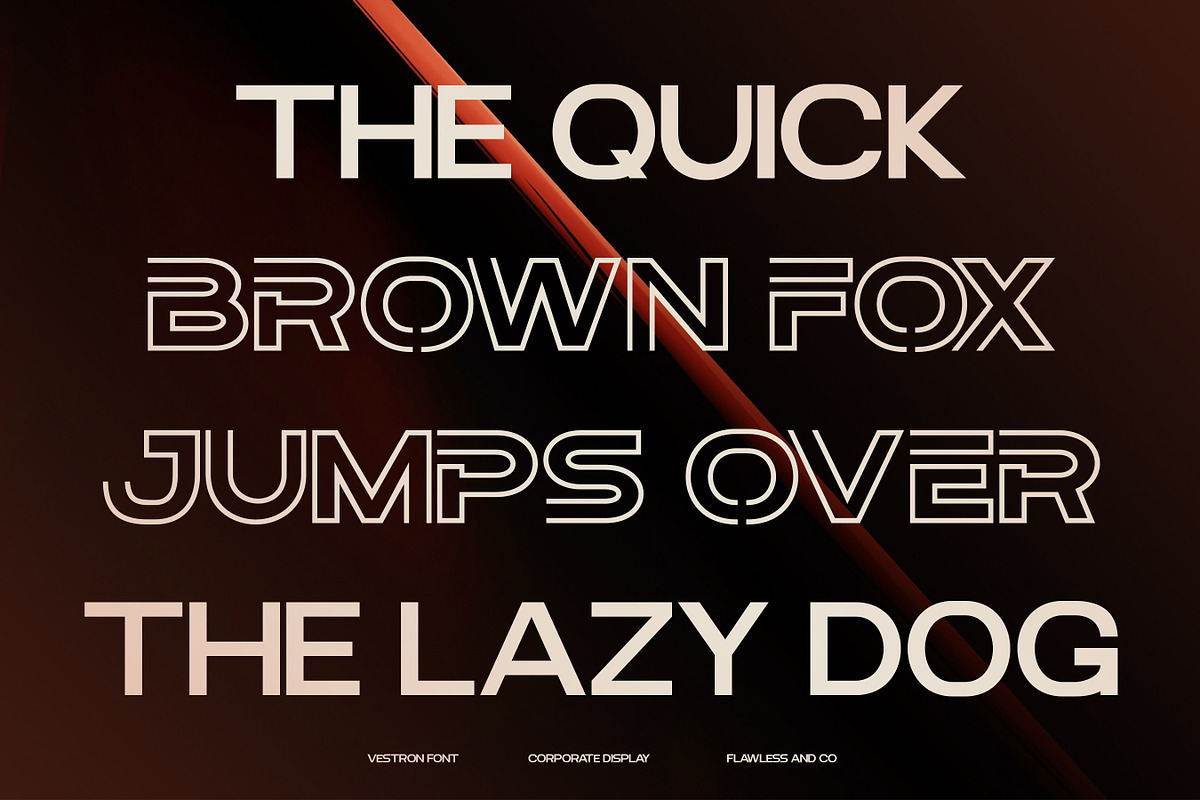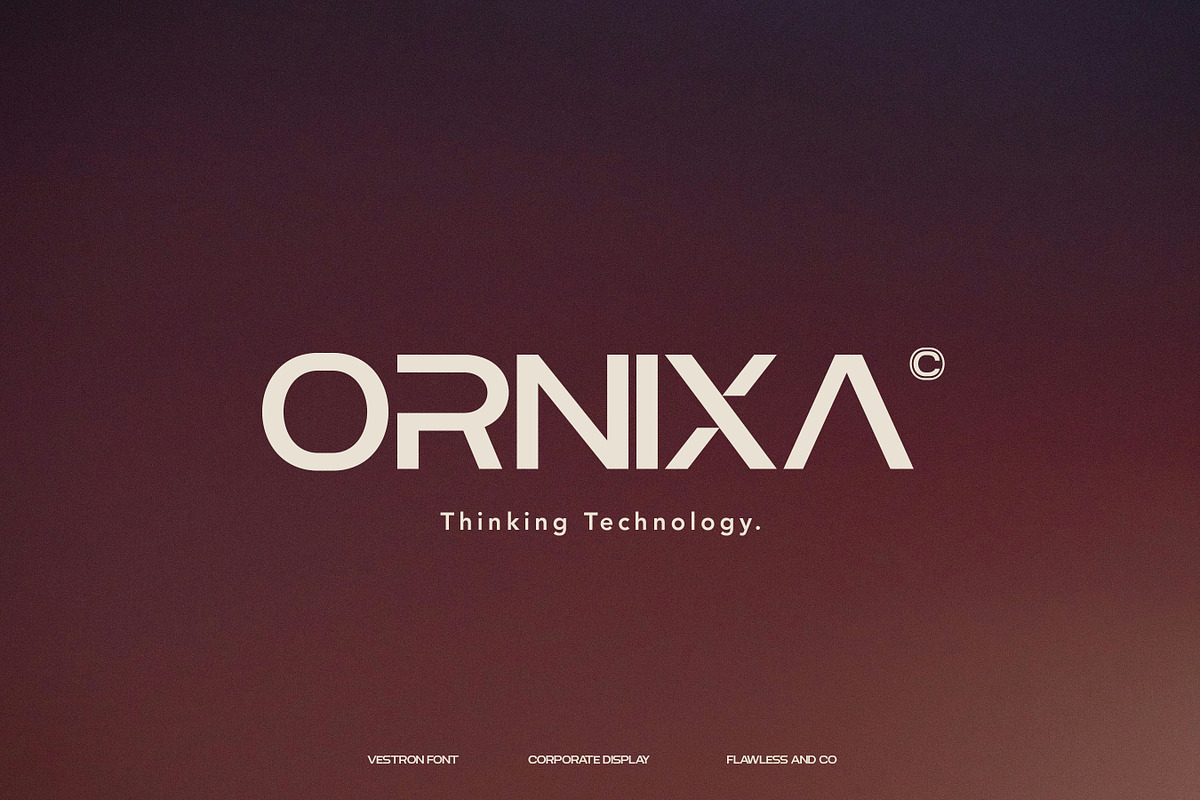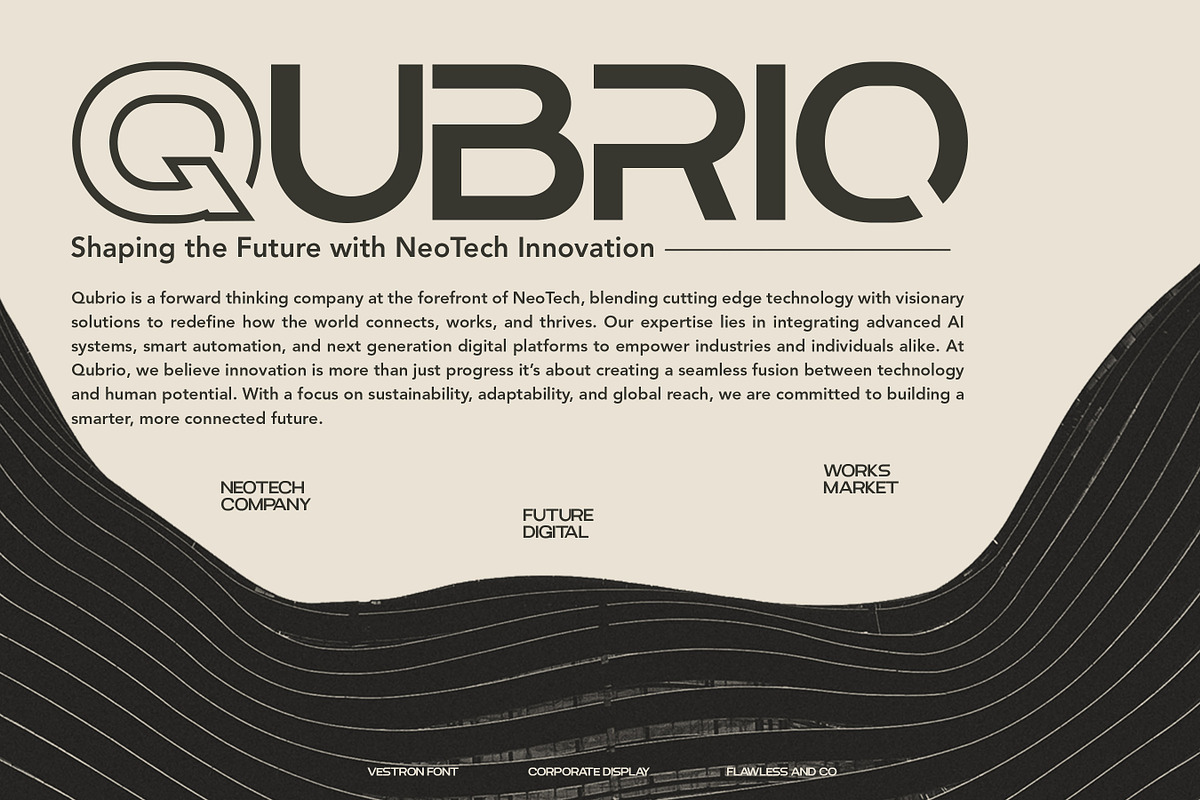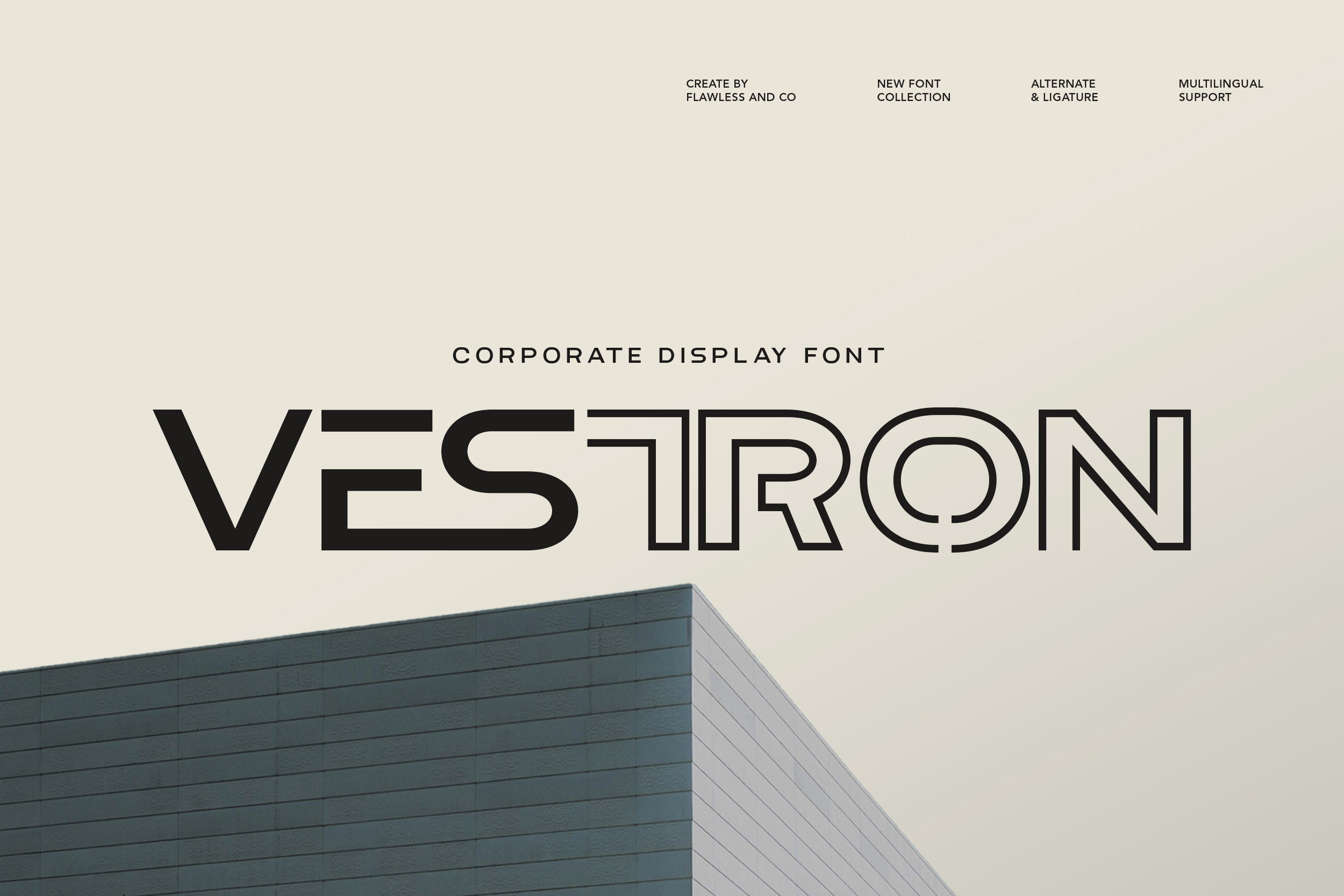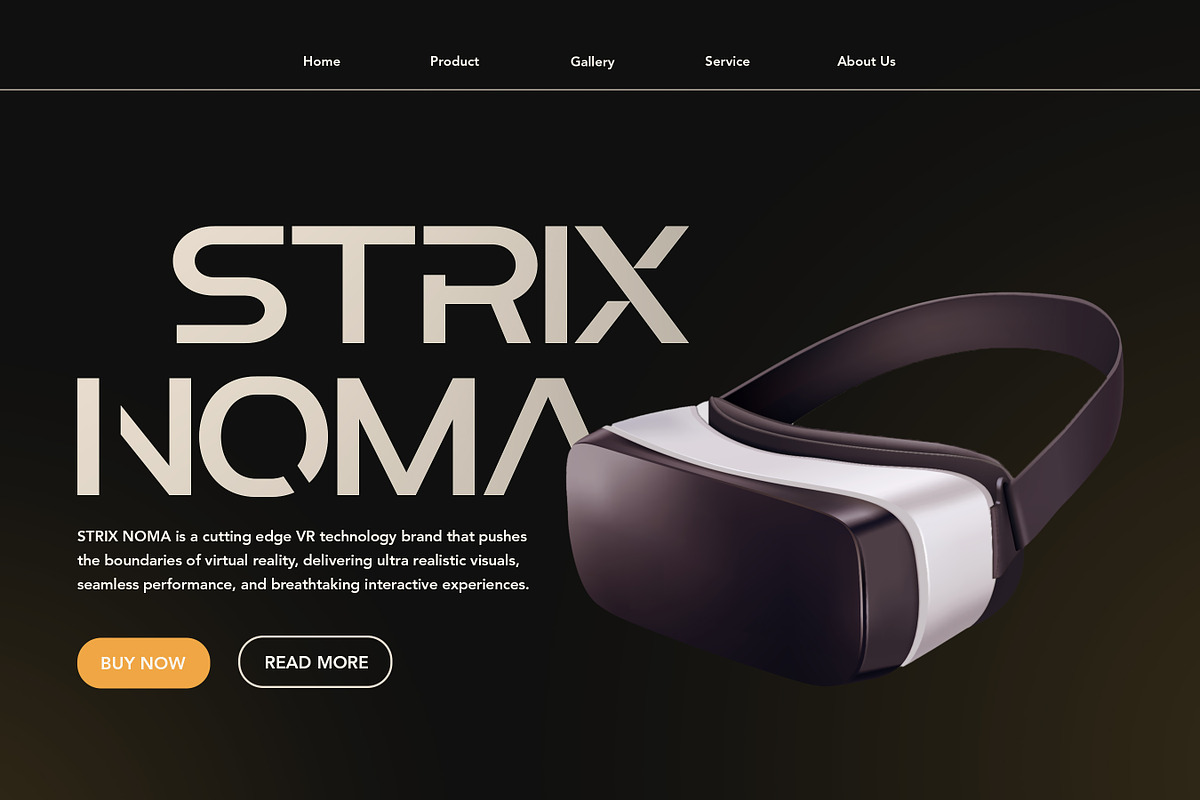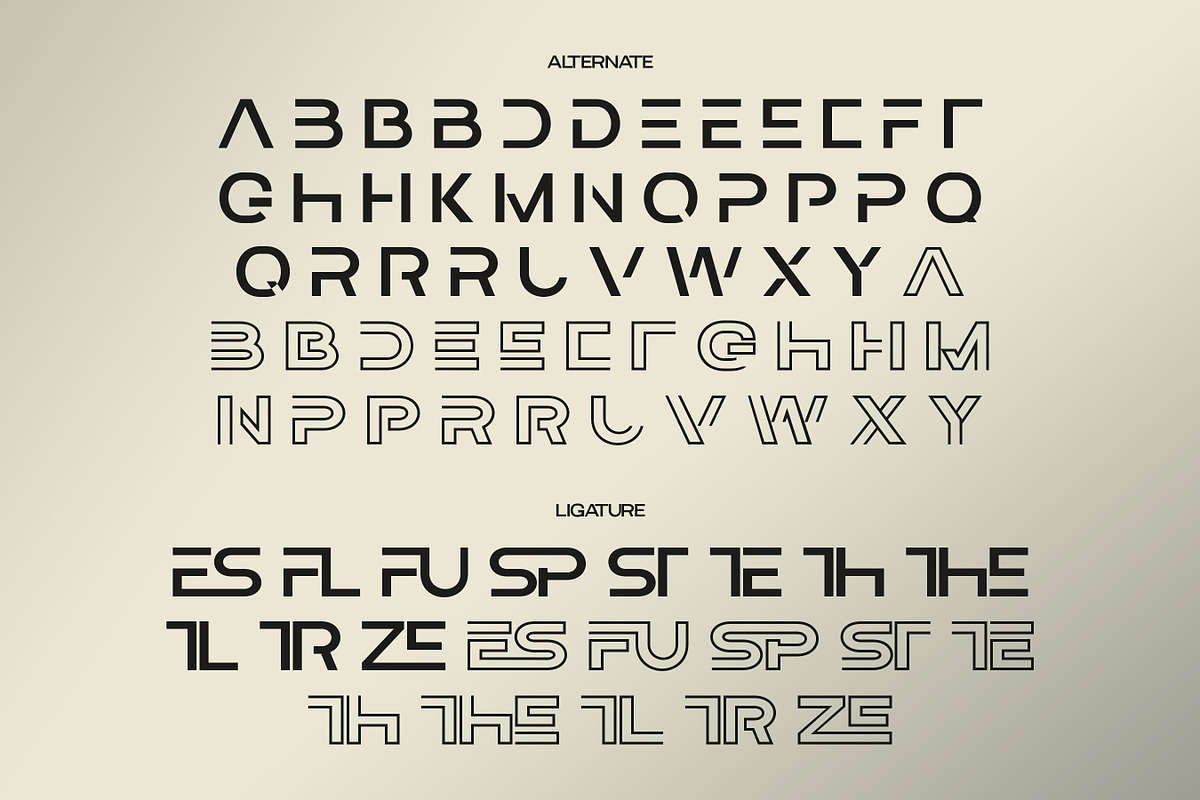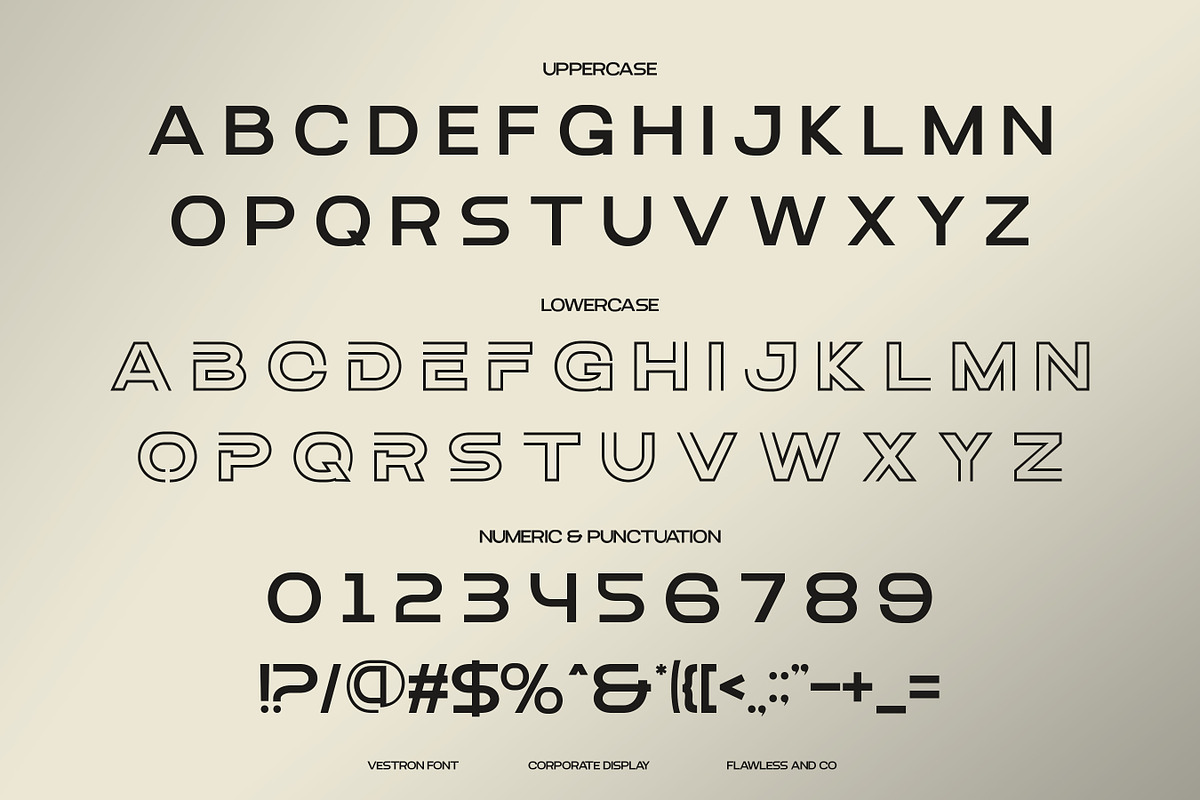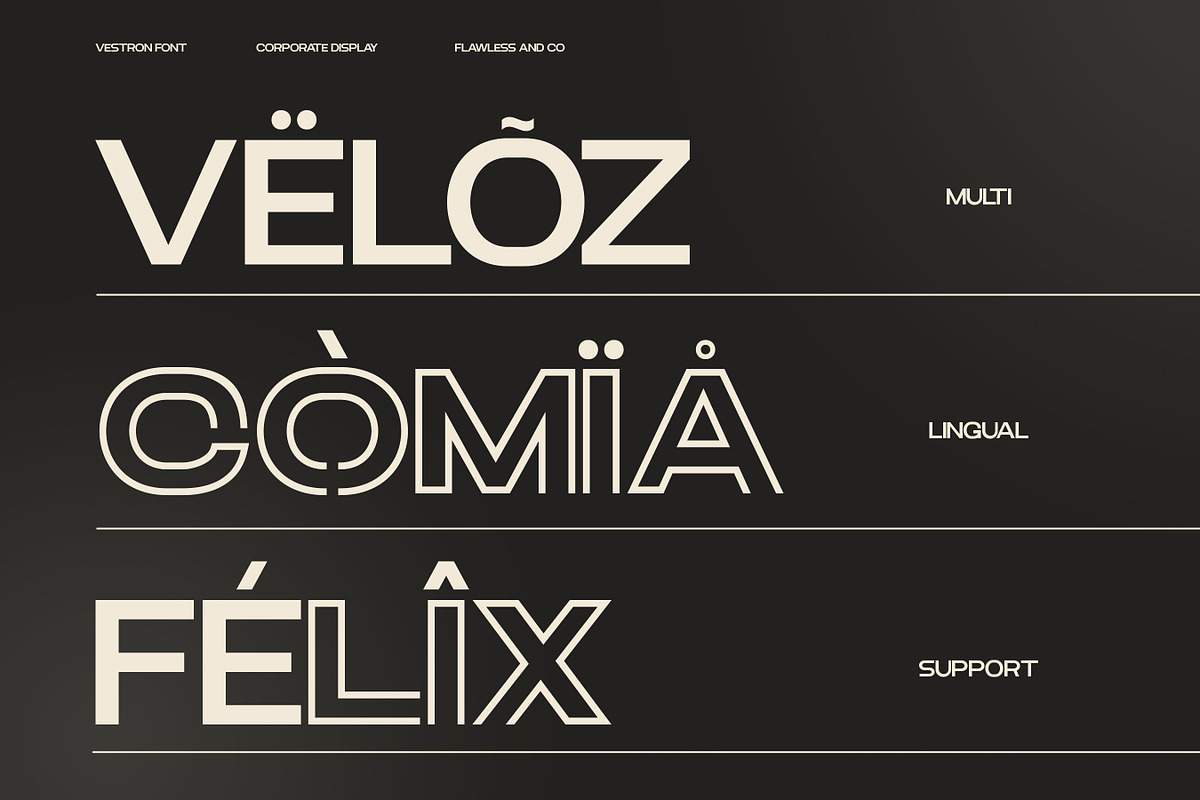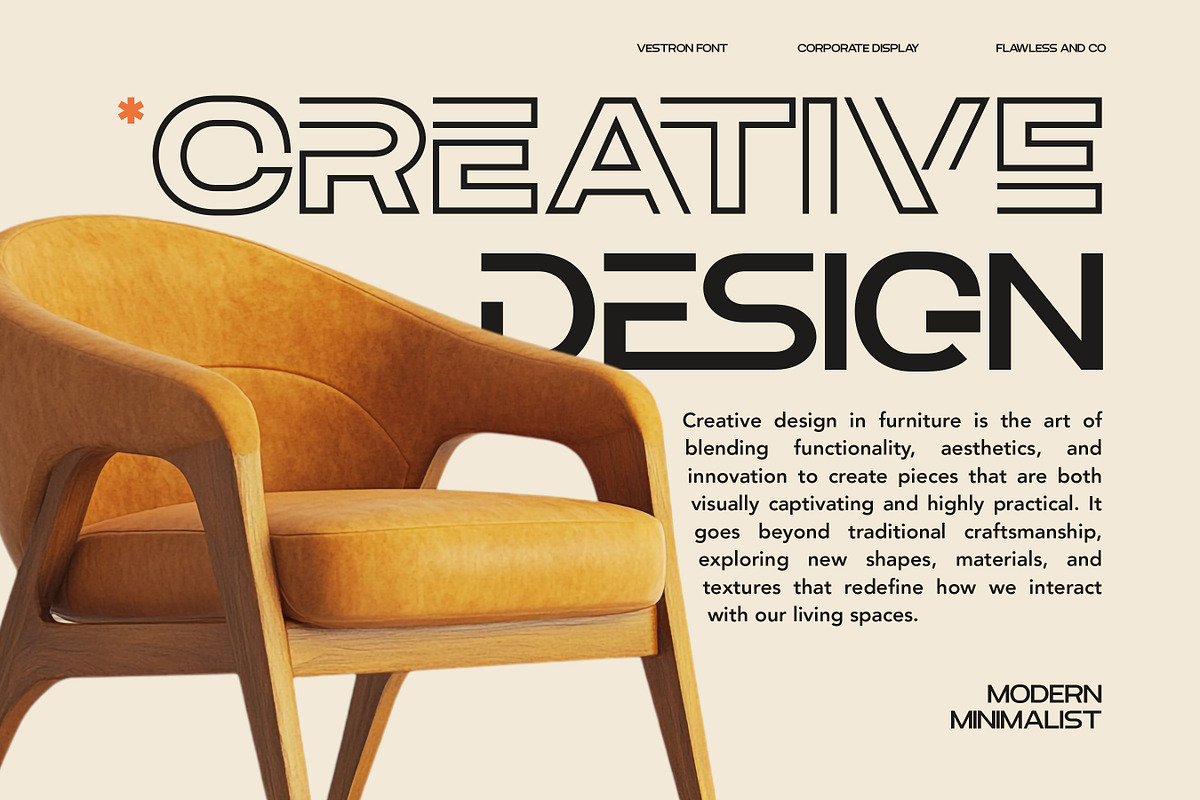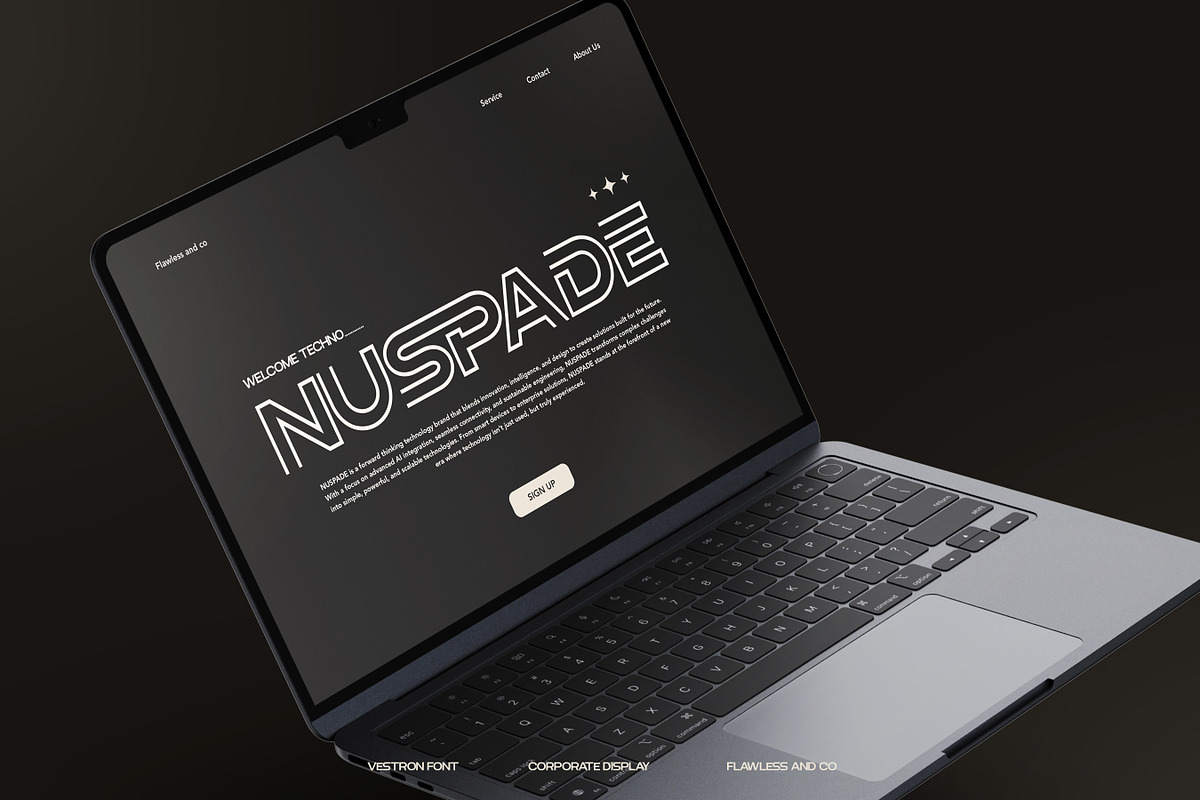
Vestron - Corporate Display Font
Vestron – Corporate Display Font
Vestron is a bold and futuristic corporate display font designed to bring a sleek, innovative, and professional edge to your projects. With its sharp geometric lines, unique alternates, and modern ligatures, Vestron is the perfect choice for brands that want to make a statement of strength, creativity, and forward-thinking identity. Crafted with versatility in mind, Vestron is ideal for corporate branding, technology startups, digital platforms, modern advertising, editorial design, and sleek web interfaces.
Who Should Use Vestron?
Vestron is made for designers, creatives, and brands who want to project a bold, modern, and professional identity. It’s the perfect choice for:
- Corporate brands and business leaders seeking a strong, futuristic look
- Tech startups and digital platforms wanting innovative visual appeal
- Creative agencies building sleek, modern brand identities
- Designers working on logos, packaging, and advertising campaigns
- Editorial teams looking for impactful headlines and layouts
A Must-Have Font for "Brand and Logo" Creators and Designers
Vestron is more than just a font — it’s a powerful design tool crafted for creators who want to make a lasting impact. With its bold style and modern edge, Vestron ensures your branding and logo projects stand out with confidence, clarity, and style.
Why Choose Vestron for "Brand and Logo" Projects?
Vestron is designed to give your brand identity a modern, professional, and memorable look. Its bold yet versatile style ensures that every logo or branding element communicates strength and creativity. Whether you’re building a corporate identity, launching a product, or refreshing a brand image, Vestron delivers the perfect balance between style and readability, making it a reliable choice for impactful designs.
Suitable For
- Brand identities and professional logo design
- Corporate and business presentations
- Product packaging and label design
- Editorial layouts and magazine headlines
- Technology, startup, and modern branding projects
- Social media graphics and digital campaigns
- Posters, flyers, and promotional materials